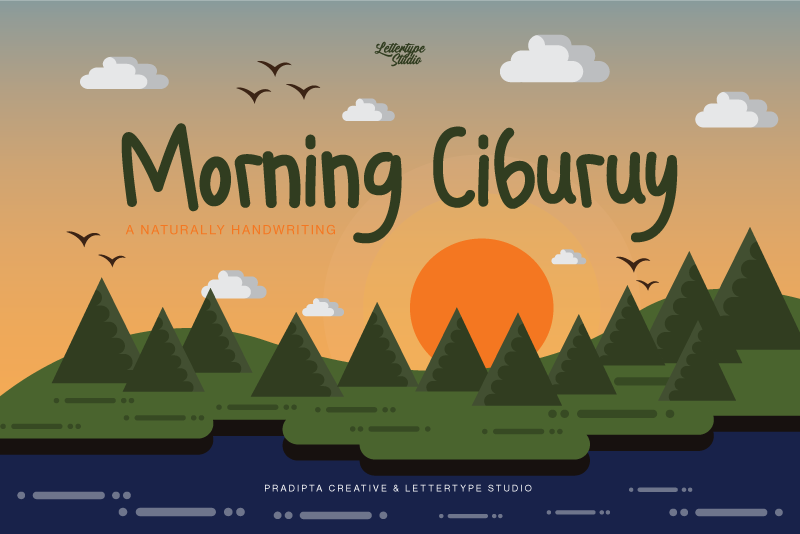
About Morning Ciburuy
We are introducing Morning Ciburuy. A Natural Handwriting Display!
This font is inspired by kid's style this font is very good for logos, design titles, displays, branding, posters, logotypes, mockups, book covers, quotes, etc.